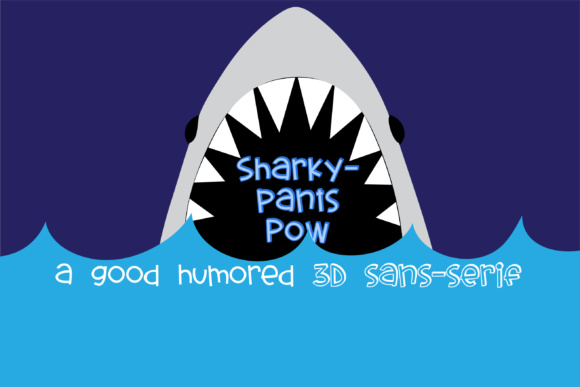
Dive into the depths of typography with Sharkypants Pow, the font that will revolutionize your visual communication. This captivating display font boasts a bold, three-dimensional design, complete with an eye-catching outline and tantalizing shadow. Its unique structure adds an unparalleled touch of sophistication to any project, commanding attention and igniting imaginations.
Sharkypants Pow is the brainchild of the renowned Illustration Ink, a visionary foundry known for pushing the boundaries of creativity. Each character exudes character and personality, inviting you to explore a world where words dance and ideas soar. Whether you're a seasoned designer or just starting out, this font will empower you to craft captivating headlines, eye-catching logos, and unforgettable branding that leaves a lasting impression.
With Sharkypants Pow at your fingertips, you'll embark on a typographic odyssey. Its versatility knows no bounds, seamlessly adapting to a myriad of styles and genres. Unleash your creativity in the realm of posters, packaging, web design, and social media, where every letter becomes a vibrant expression of your unique vision.
Embrace the power of typography and make a statement that resonates with your audience. Download Sharkypants Pow today and unlock the full potential of your visual storytelling. Let your words ignite imaginations, inspire action, and leave an indelible mark on the world. Immerse yourself in the depths of Sharkypants Pow and discover the boundless possibilities that await you.